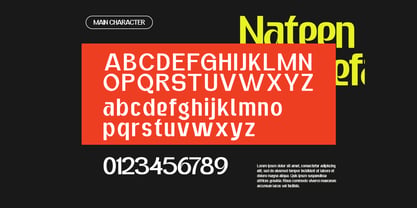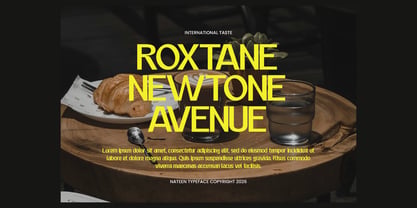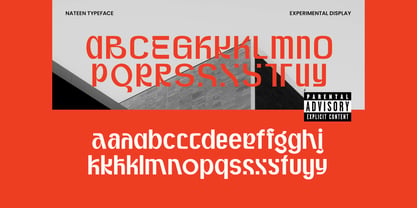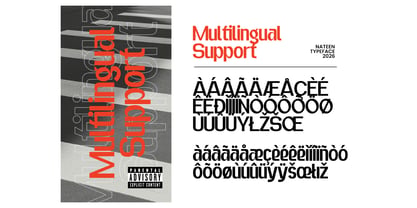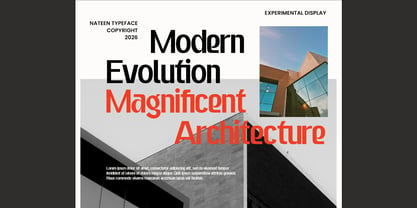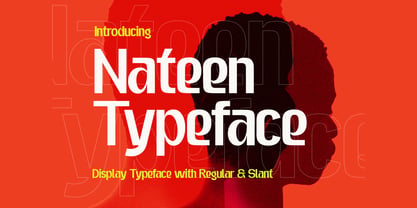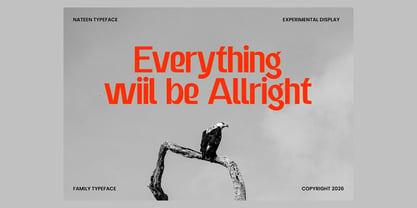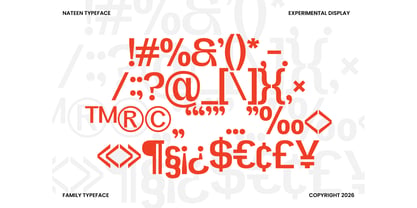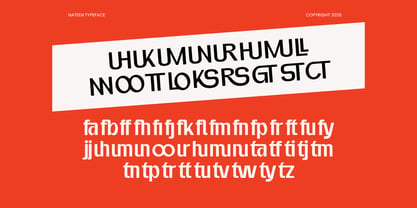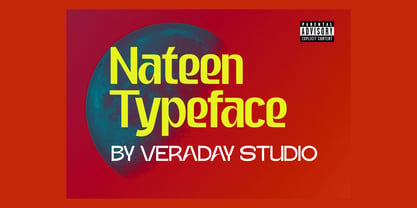
Nateen Display
by ijemrockart
The Nateen Display Font Family was designed by Ferdiansyah and published by ijemrockart. Nateen Display contains 2 styles and family package options. More about this family
Nateen Display a new fresh & modern serif with a strong style, a dancing baseline! So beautiful on invitation like greeting cards, branding materials, business cards, quotes, posters, and more! Nateen Display is the part of a strong and modern Bold display. This typeface both impressive at display sizes and easily readable in text size, while the sharp shapes of the triangular serif and the distinctive letter shapes show their strength in logo design and impressive editorial use. WHAT'S YOU GET ? I really hope you'll get pleasure using Nateen font and it will be perfect addition to your font collection! Contact me with an inbox message If you have any question. Thank you! Happy Creating.
Designers: Ferdiansyah
Foundry: ijemrockart